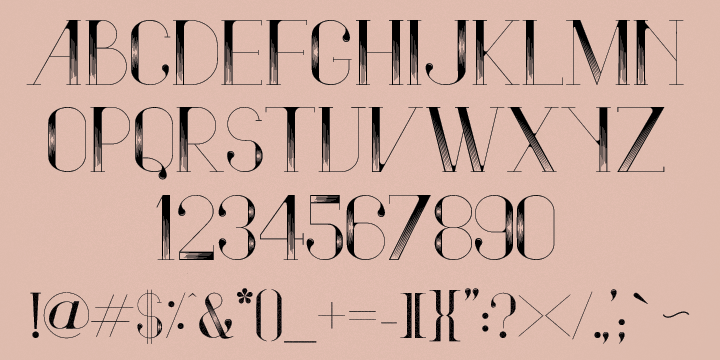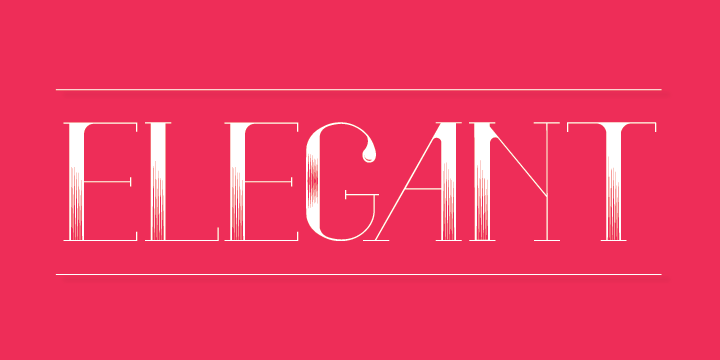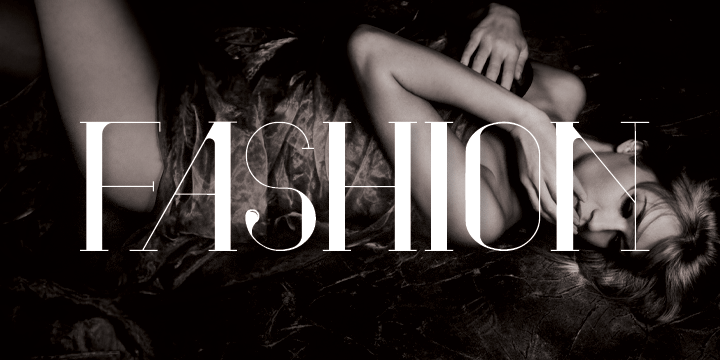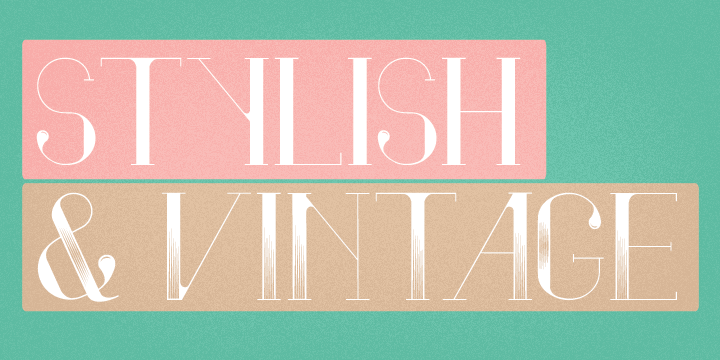
Vindeco Font Family
Vindeco is a classic typeface, vintage with a mix of decorative. It looks stylish and elegant in any layout with it’s slick lines, use it for your magazines, brochures and editorial layouts.
Vindeco is designed to make eye-catching headings and typographic designs, use it on invites and in magazines, Vindeco looks beautiful on its own or with imagery.
Vindeco
Vindeco Print